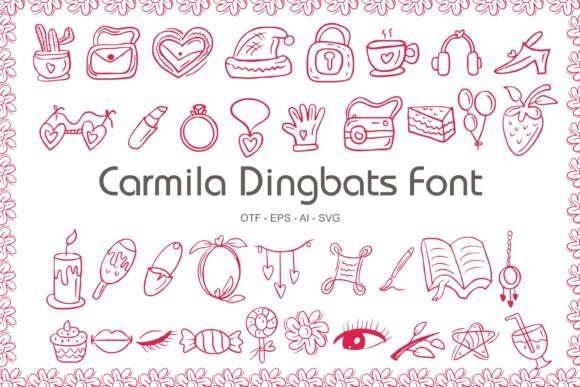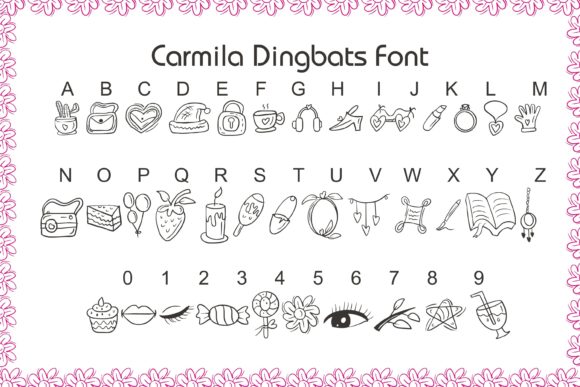
Carmila Dingbats Font
“Carmila Dingbats” is indeed a cool, creative, and useful dingbats font that can be a valuable asset in your font library. This font offers a wide range of unique and captivating symbols and icons that can elevate any creative project, regardless of the topic.
The “Carmila Dingbats” font is designed with attention to detail, providing a diverse collection of symbols that can be used in various contexts. Whether you’re working on crafts, digital designs, presentations, or any other creative endeavor, this font has the potential to enhance your creations.
With “Carmila Dingbats,” you can easily incorporate eye-catching icons into your designs. The symbols cover a broad spectrum of themes, such as nature, animals, technology, food, transportation, and more. This versatility allows you to find the perfect symbol to complement your project, adding visual interest and enhancing the overall design aesthetic.
In crafting, “Carmila Dingbats” can be an excellent addition to your repertoire. Whether you’re creating handmade cards, scrapbooking, or engaging in other craft projects, the font’s symbols can serve as decorative elements, borders, or focal points. Their unique and creative design can add a touch of personality and charm to your crafts, making them stand out.
For digital designs, “Carmila Dingbats” offers a plethora of options to enhance your visuals. From social media graphics to website designs, you can use these symbols to add an extra layer of creativity. They can be used as icons, embellishments, or decorative elements to make your digital designs more engaging and visually appealing.
Additionally, “Carmila Dingbats” can be particularly useful in presentations. You can use the symbols as bullet points, visual aids, or to illustrate concepts, making your presentations more engaging and memorable.
Whether you’re working on branding, marketing materials, or any other creative project, “Carmila Dingbats” provides you with an array of symbols that can be easily incorporated to enhance your designs. The font’s cool and creative style adds a unique flair to your creations, allowing you to stand out and make a lasting impression.
In conclusion, “Carmila Dingbats” is a cool, creative, and useful dingbats font that can elevate any creation. Its diverse collection of symbols covers various themes, making it versatile and suitable for different design projects. With this font in your library, you’ll have a valuable tool to enhance your crafts, digital designs, presentations, and more. Let your imagination run wild and explore the endless possibilities of “Carmila Dingbats” in your creative endeavors.